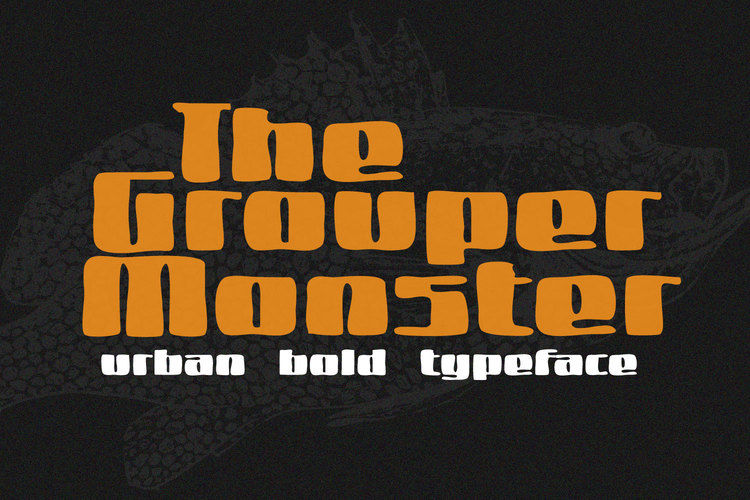
Grouper Monster
Grouper Monster is a bold handwritten font with an attractive urban style.
thick stroke for vertical direction combined with thin stroke for the horizontal direction.
then we scramble the edges of the curve so that the display changes to attractive, unique and unpredictable shapes. Get inspired by this unique style.